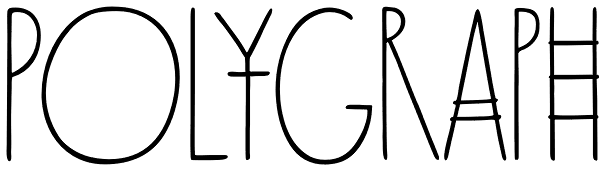
Polygraph
Inspired on posters by the extraordinary polish artist Leszek Żebrowski, Polygraph is a highly unusual face. Packed with eccentric alternates, it is an all-caps font with four exchangeable variations for each letter. These alternates are programmed...